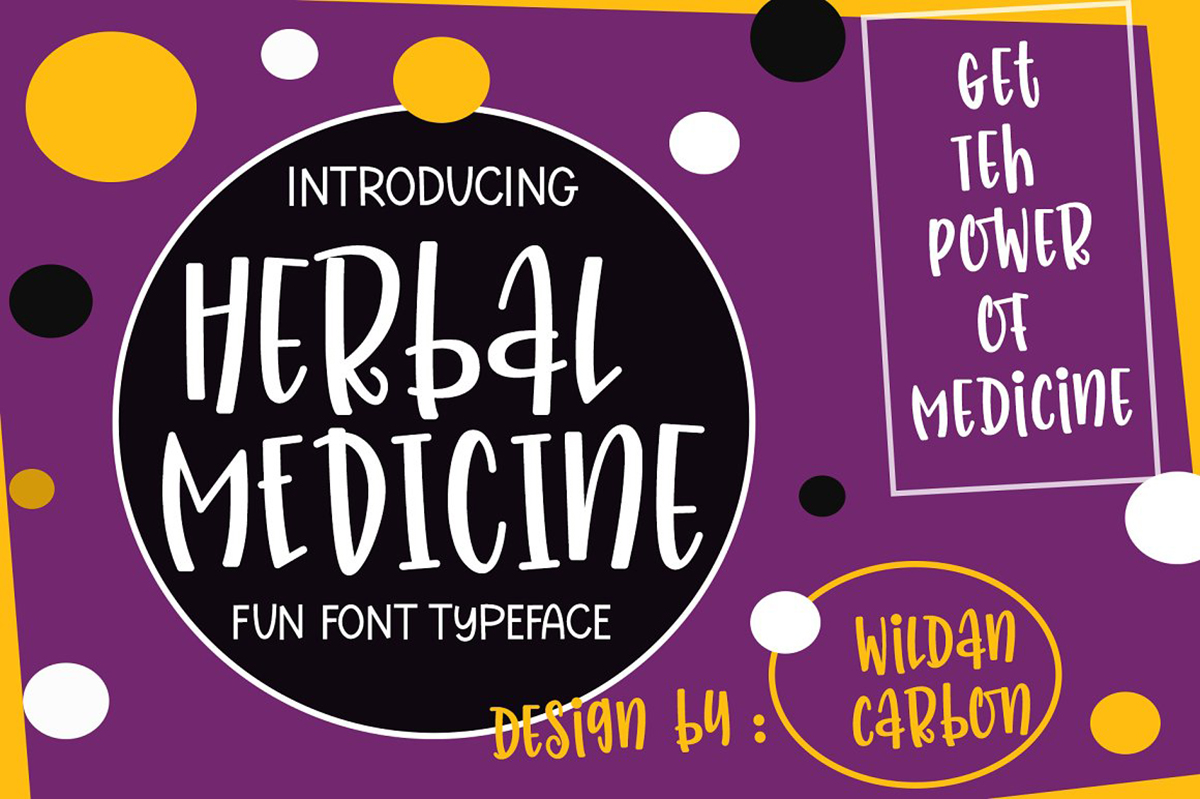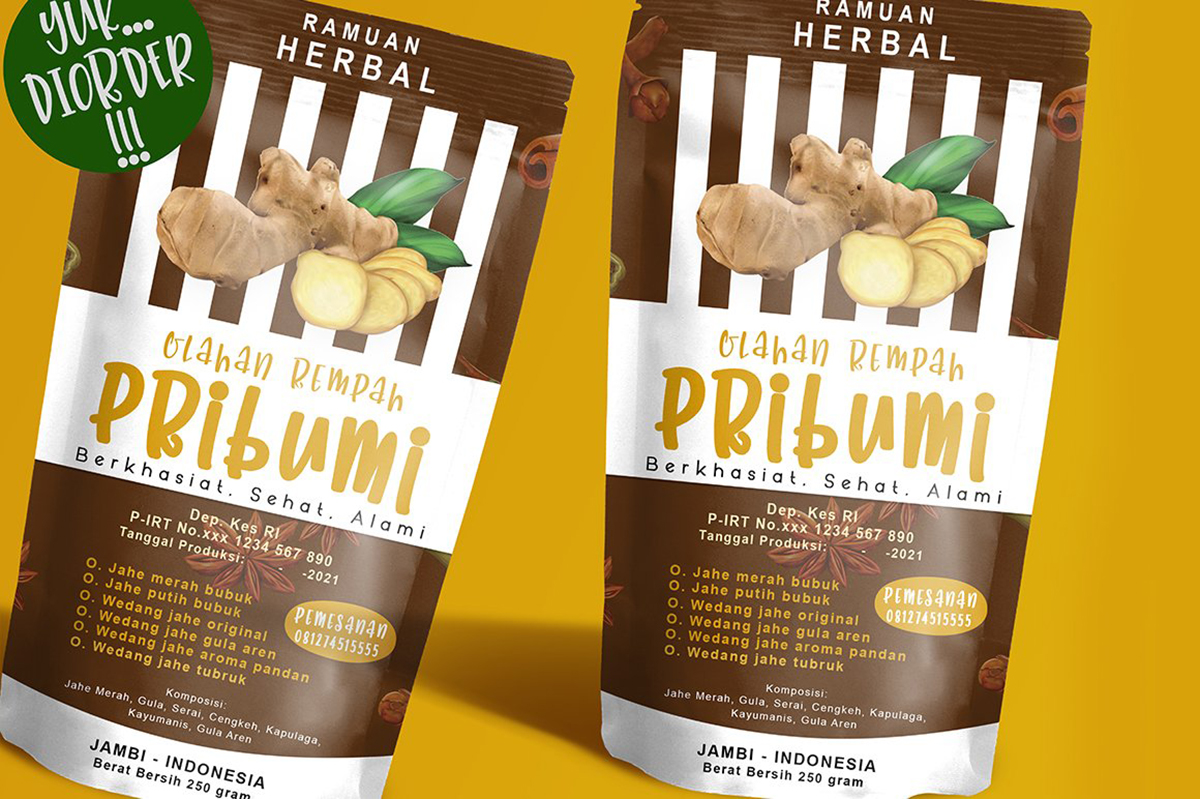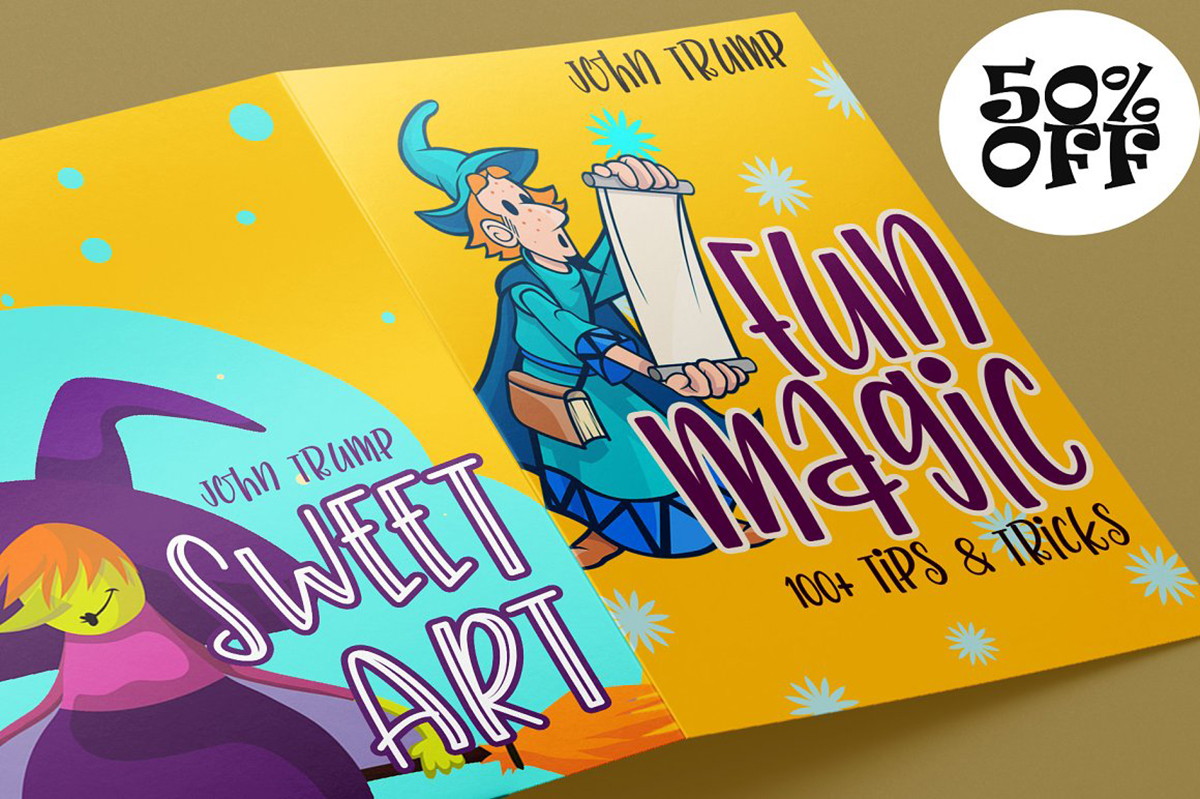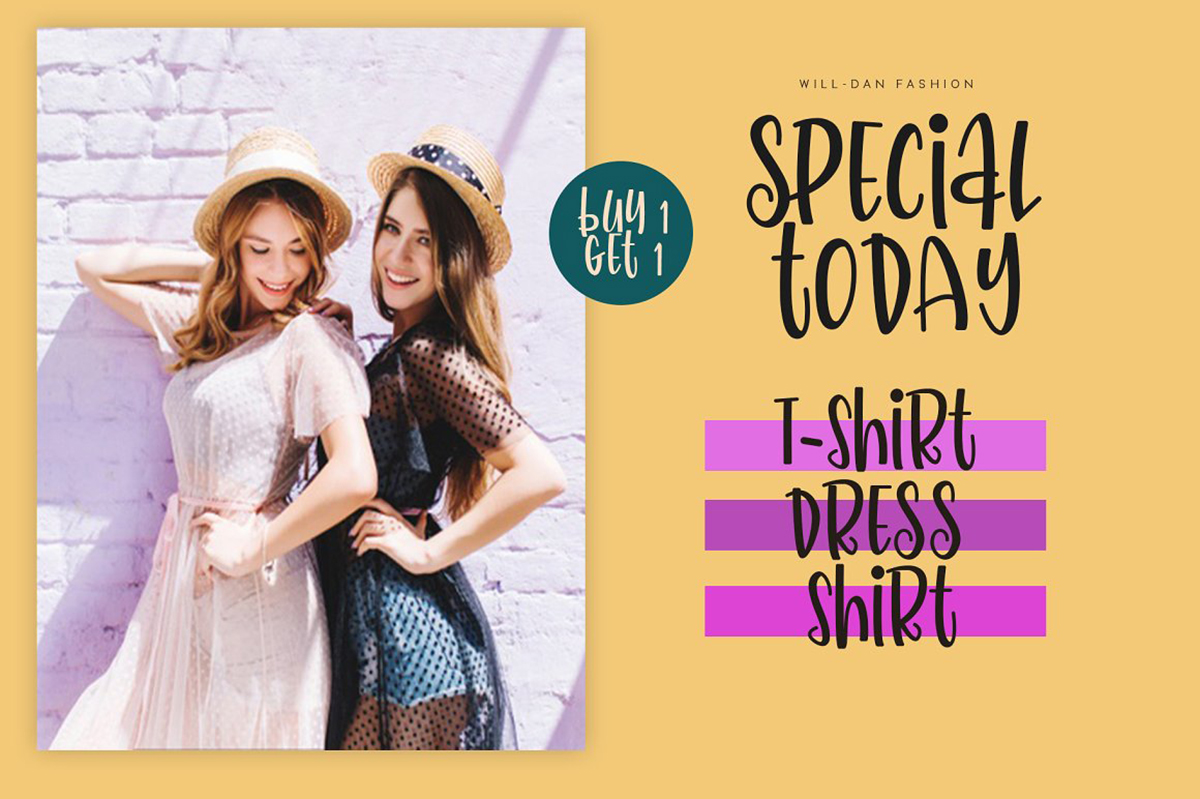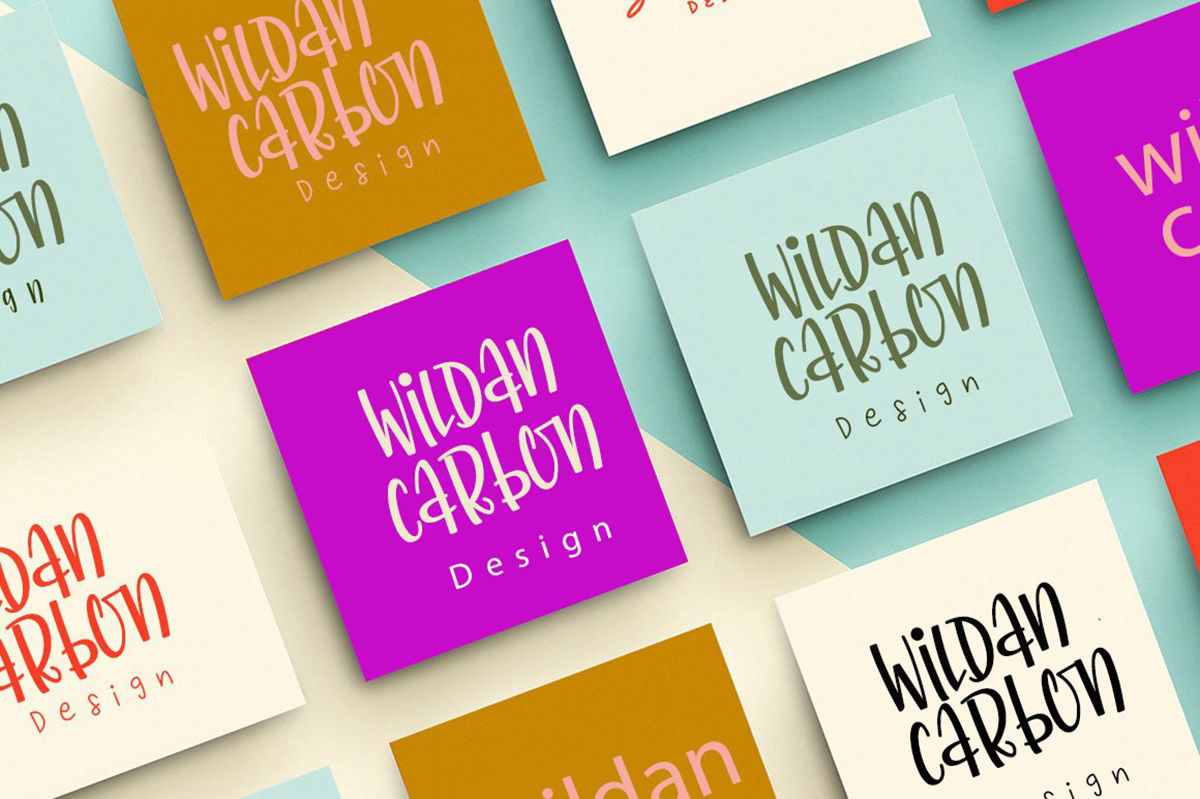
Herbal Medicine Free Font
Herbal Medicine Free Font is a charming and approachable display font that embodies a cute and casual aesthetic. With its original look, this font is a perfect fit for a multitude of crafty ideas, from letterheads and titles to stationery designs. Embrace the friendly appeal of Herbal Medicine and watch as it adds a delightful touch to your creative projects. Whether you’re designing a logo, crafting stationery, or creating eye-catching titles, this font is sure to captivate your audience. Let Herbal Medicine infuse your designs with its unique charm and create a lasting impression. This free typeface was designed by a talented Wildan Syah. If you like it don’t forget to check out the full version.